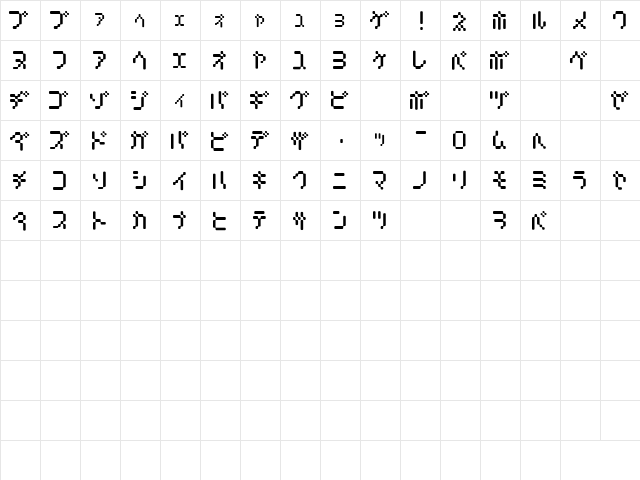
Amoebic kana Regular
Design Context for Amoebic kana Typeface
Amoebic kana takes a measured approach to typography — its balanced proportions and neutral character make it a reliable workhorse for both digital and print work.